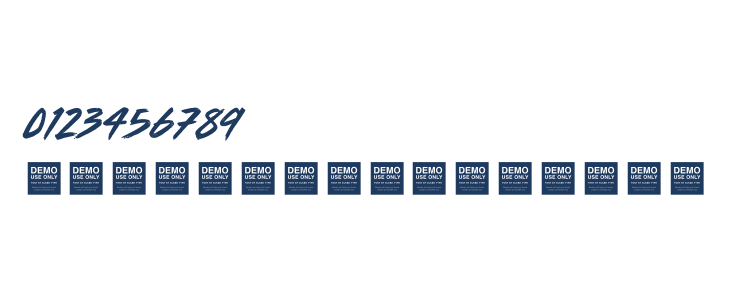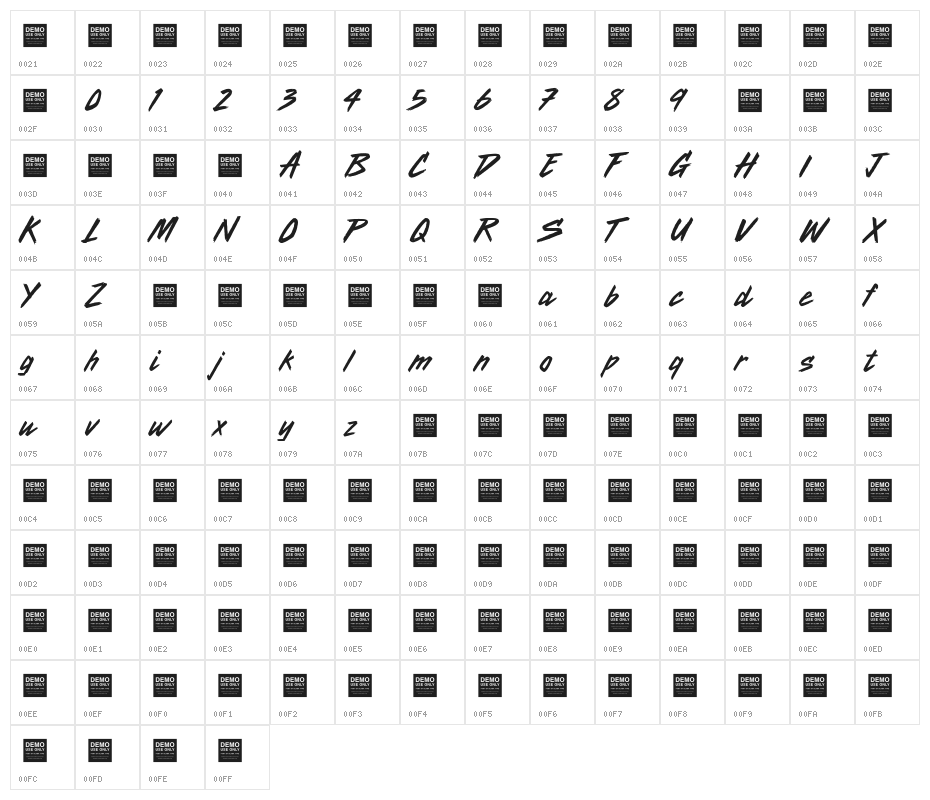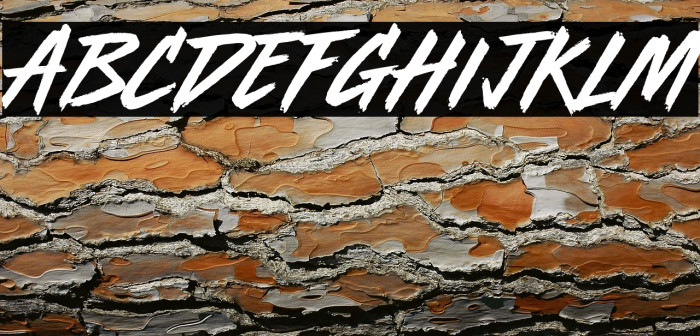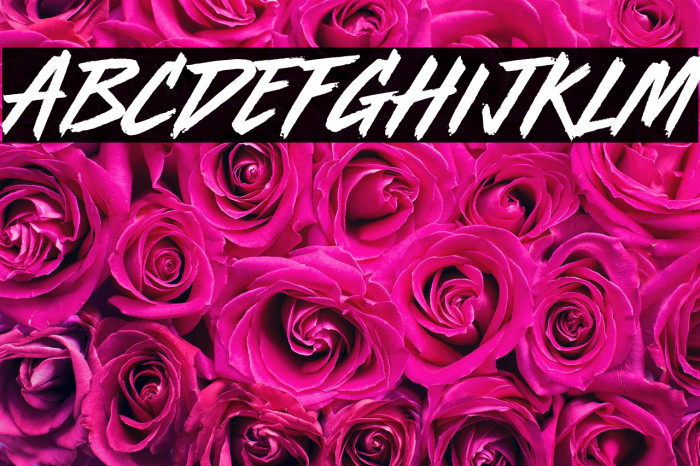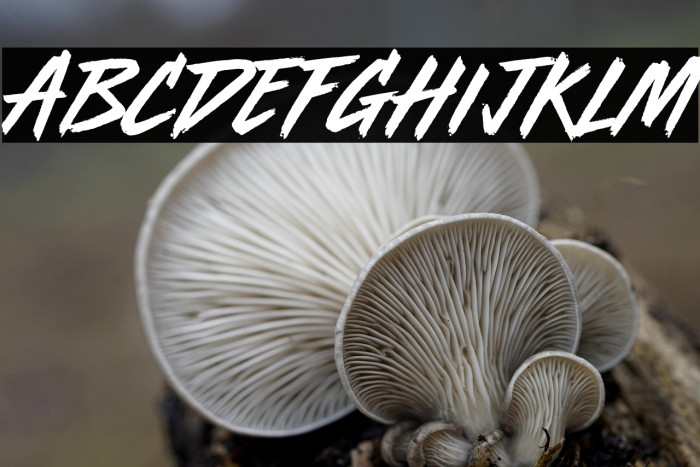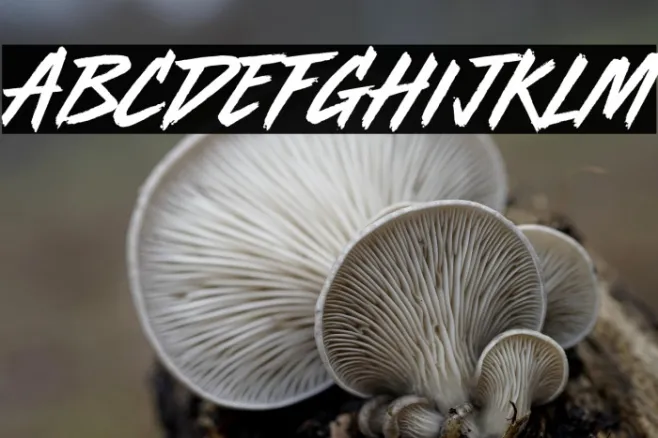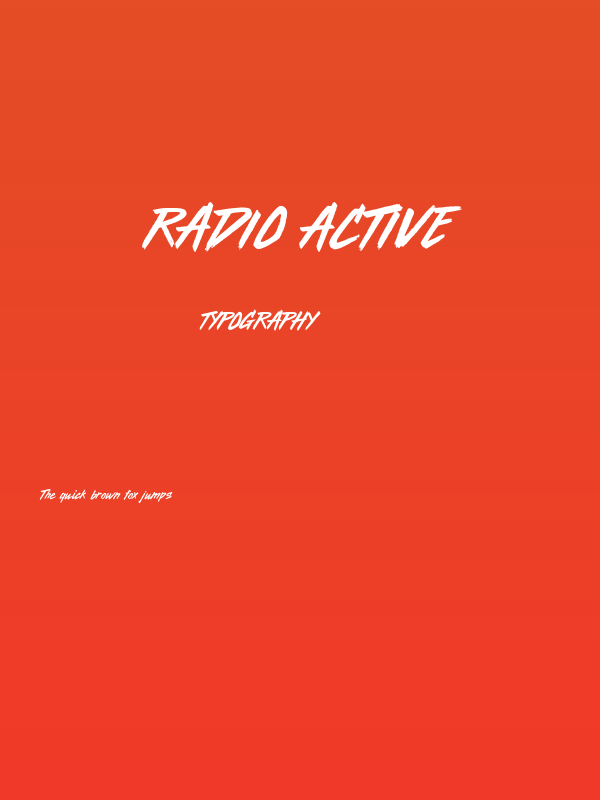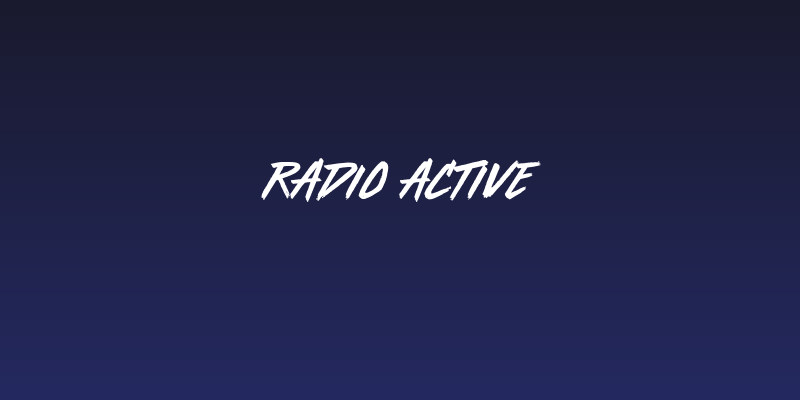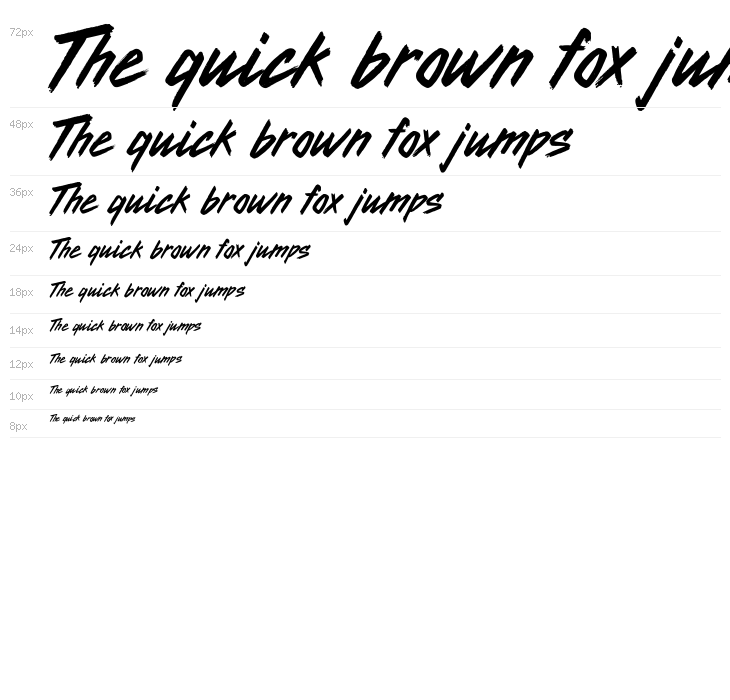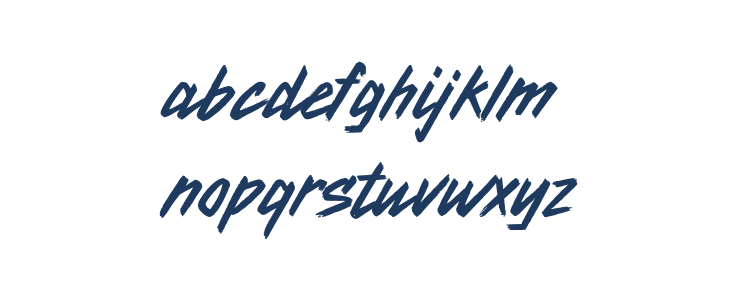
Radio Active Font
Radio Active Description
This font features a bold, energetic script style with a brush-like appearance. The strokes are dynamic and slightly irregular, giving it a hand-painted feel. The uppercase letters are tall and commanding, while the lowercase letters maintain a consistent flow, enhancing readability. The numbers follow the same energetic style, making them stand out. This font's unique character is perfect for creating eye-catching designs that require a personal touch.